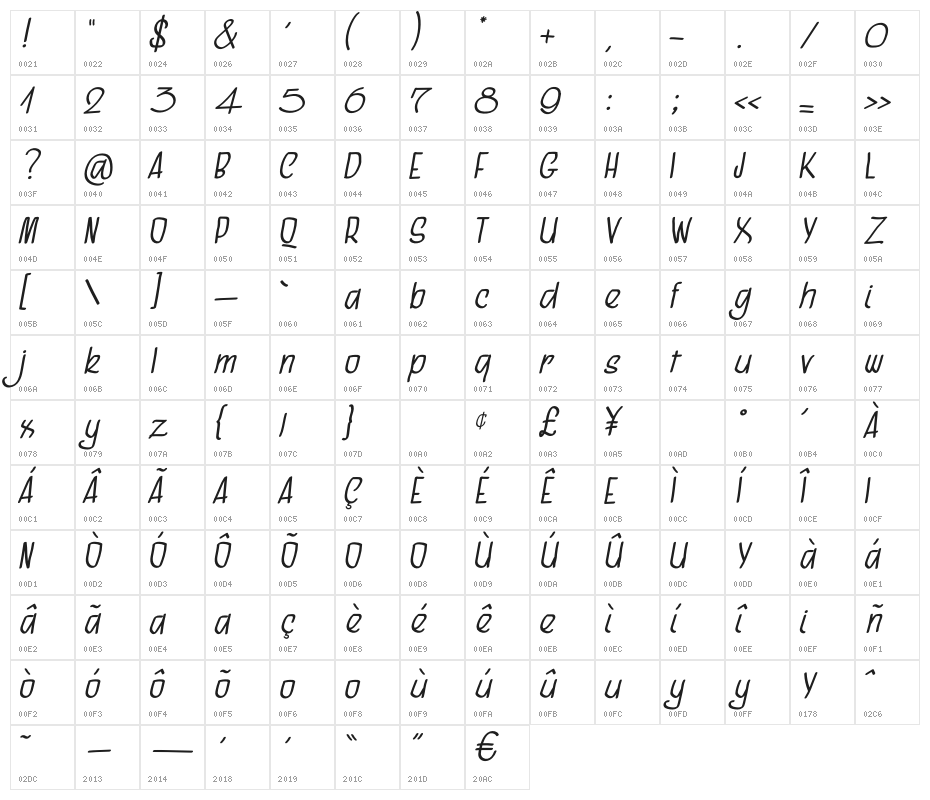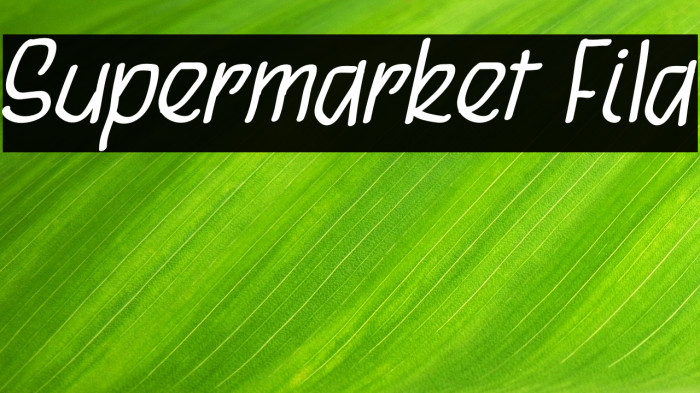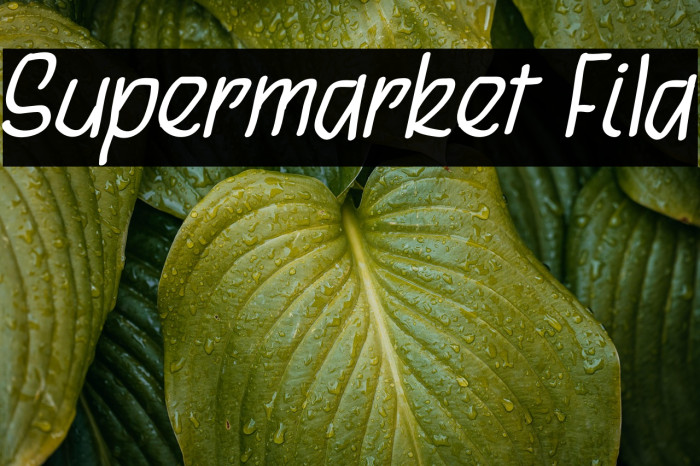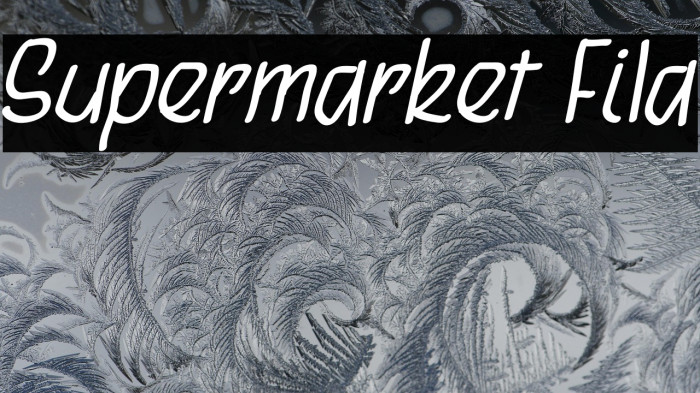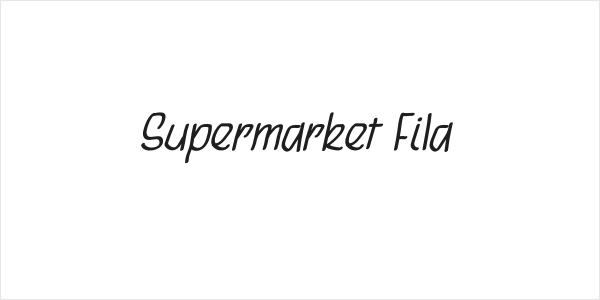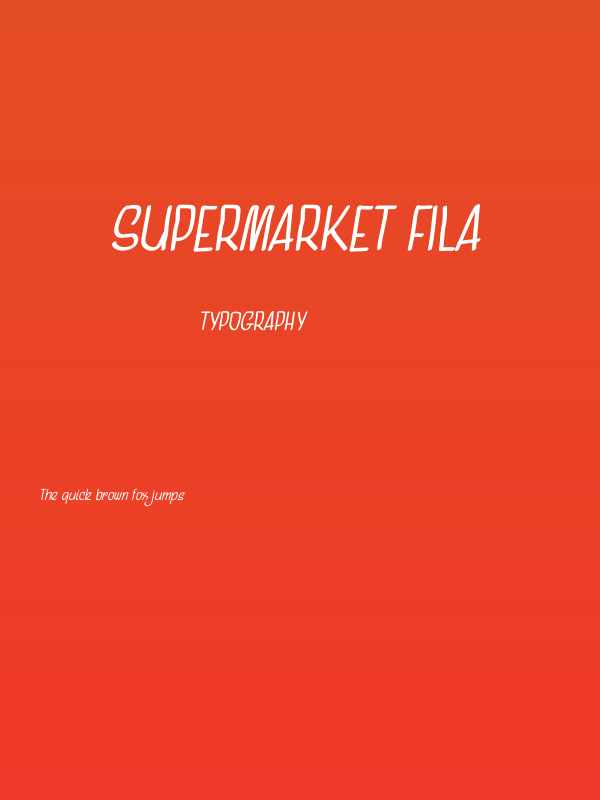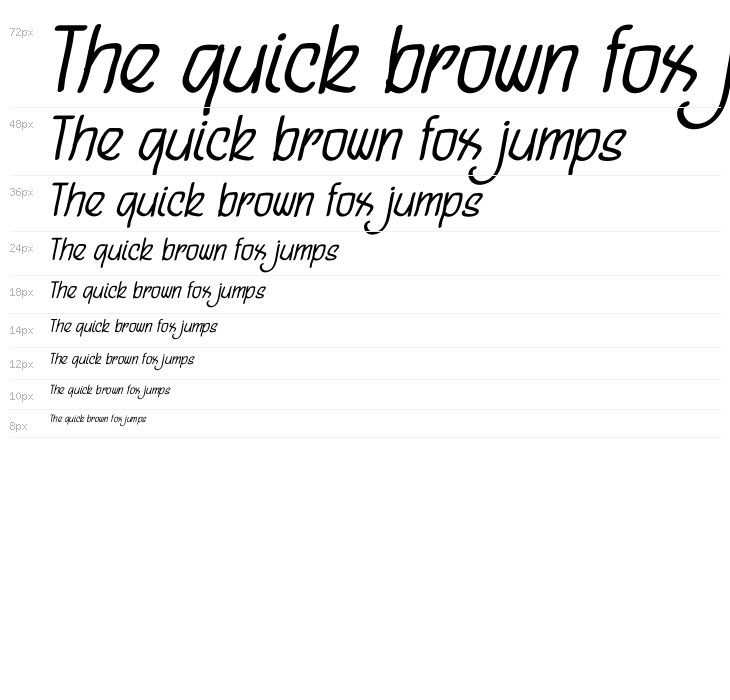
Supermarket Fila Font
Supermarket Fila Description
This font features a dynamic and fluid script style, characterized by its handwritten appearance. The uppercase letters are tall and slightly narrow, with a consistent slant that adds a sense of movement and energy. The lowercase letters maintain the same slant, with smooth curves and a casual, informal feel. The numerals are rounded and maintain the fluidity of the script, making them easily readable. Special characters are integrated seamlessly, maintaining the overall aesthetic. This font is ideal for projects that require a personal touch, such as invitations, greeting cards, or branding that aims to convey friendliness and approachability.